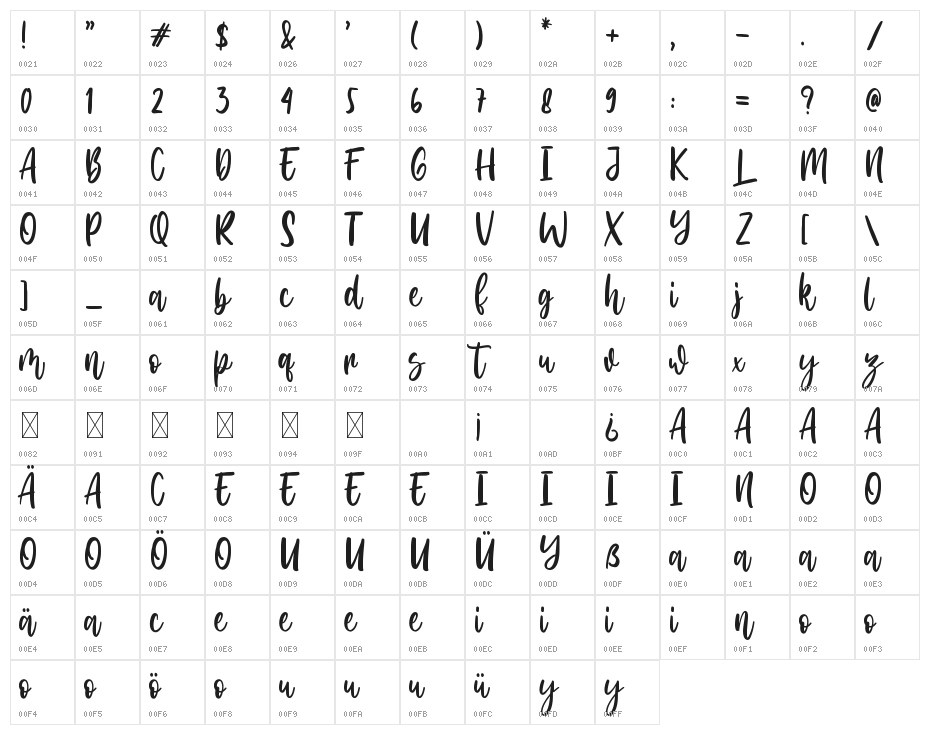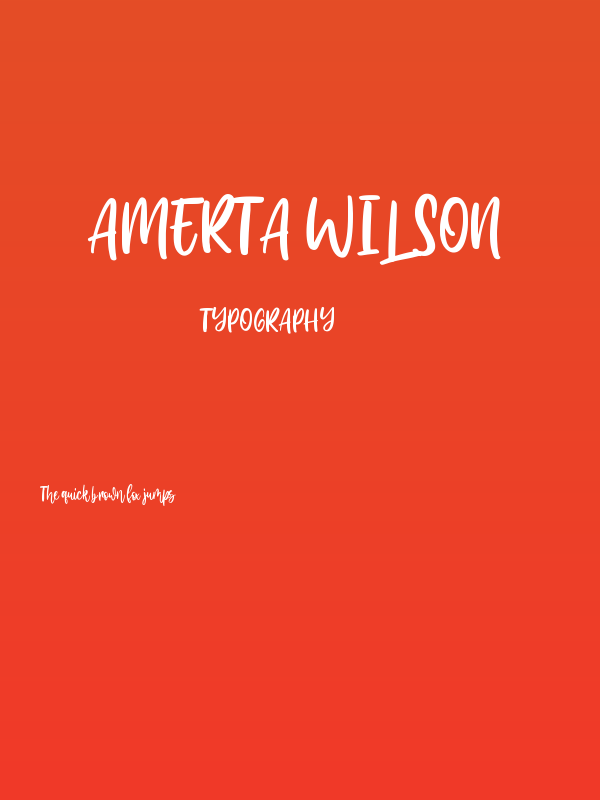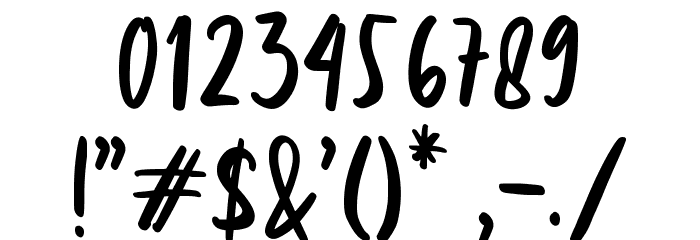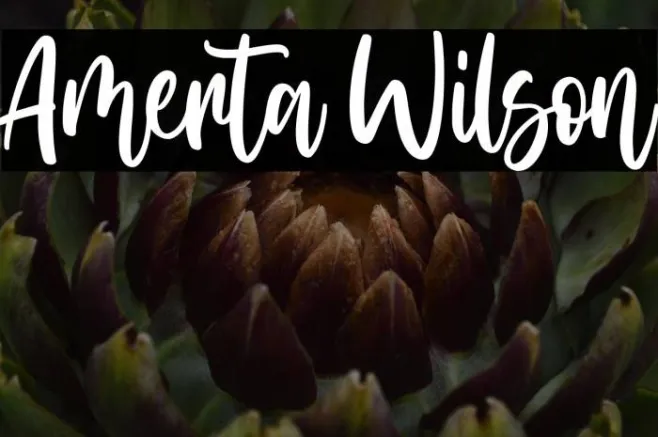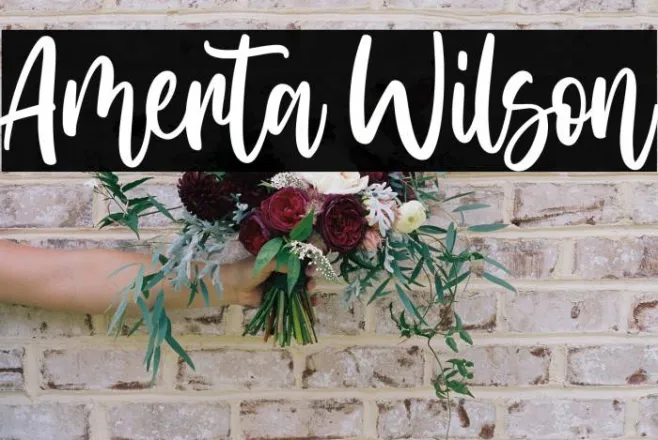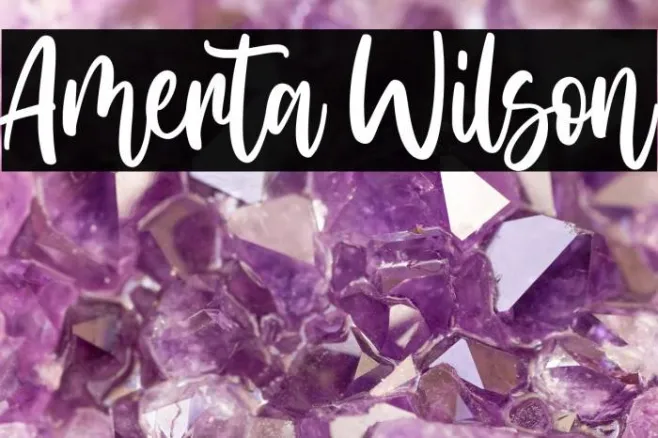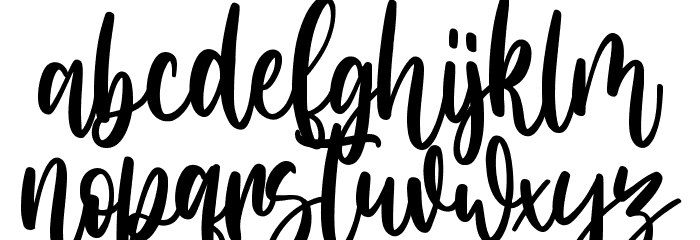
Amerta Wilson Font
Amerta Wilson Description
This font features a lively and dynamic handwritten style, characterized by its fluid and organic strokes. The letters are bold and slightly slanted, giving a sense of movement and energy. The uppercase letters are tall and commanding, while the lowercase letters maintain a consistent flow with playful loops and curves. The numbers and special characters complement the alphabet with similar stylistic elements, ensuring a cohesive look. This font exudes a casual yet artistic vibe, making it suitable for creative and expressive projects.